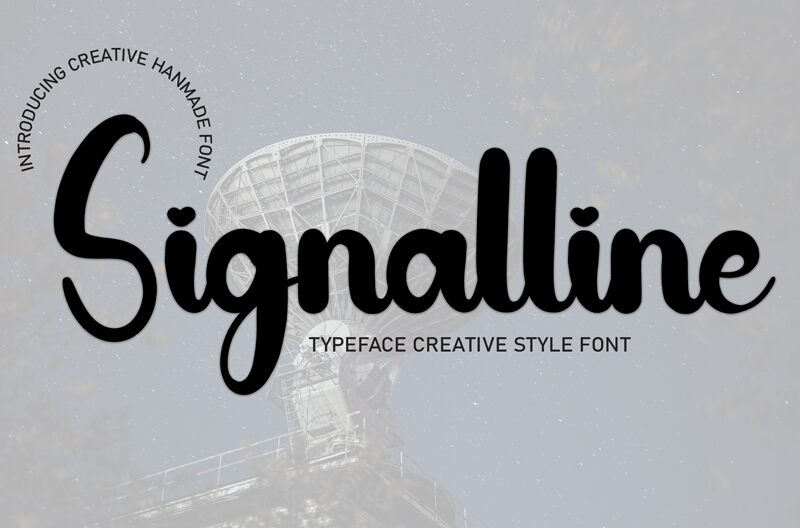
Signalline
Signalline is a smooth, brush-style font that effortlessly blends artistic flair with modern elegance. Designed by Andi Moz, this typeface boasts a captivating fluidity, with each letter seamlessly flowing into the next.
The gentle, rounded curves and intuitive letter connections create a sense of warmth and approachability, making Signalline an exceptional choice for a wide range of design applications, from branding and packaging to editorial layouts and event materials.
Its versatility and distinctive character make it a standout option for designers seeking to elevate their projects with a touch of refined sophistication.